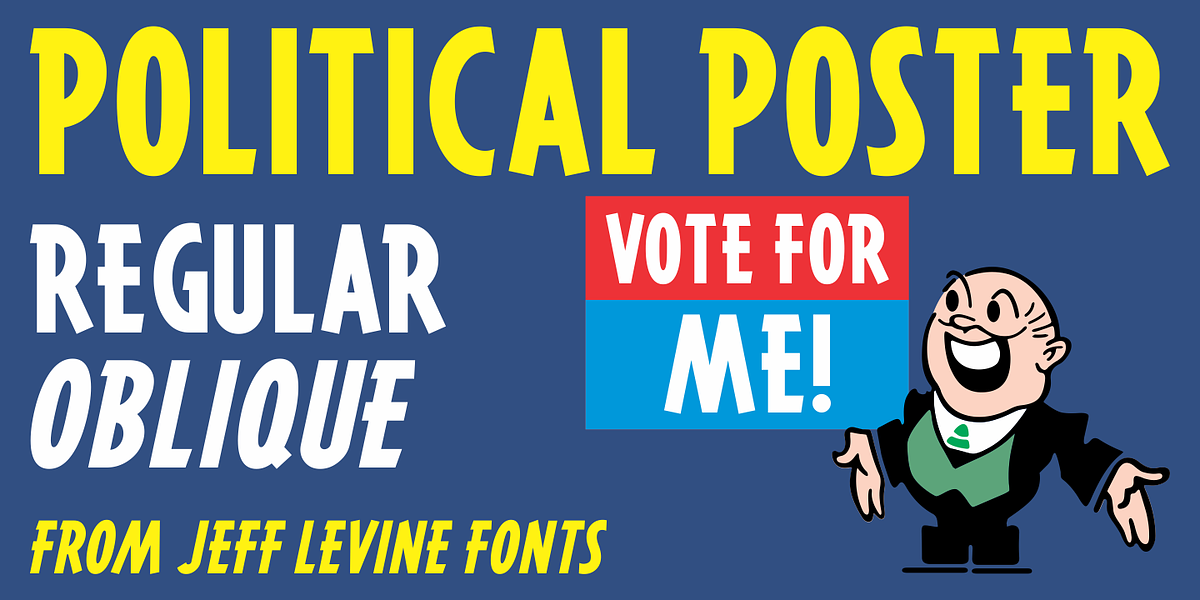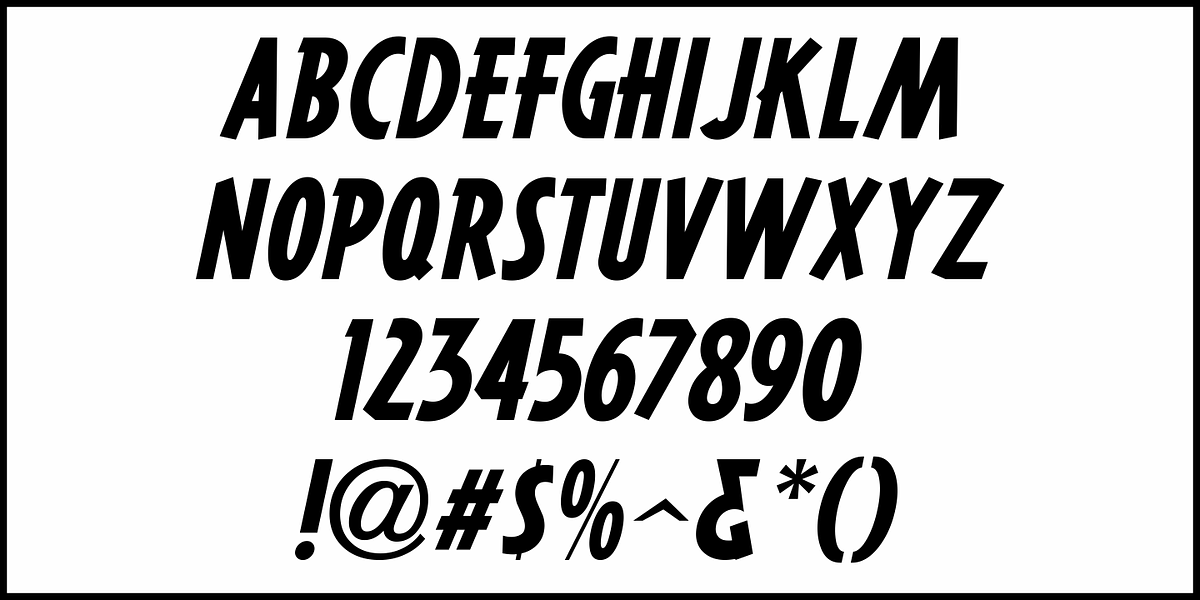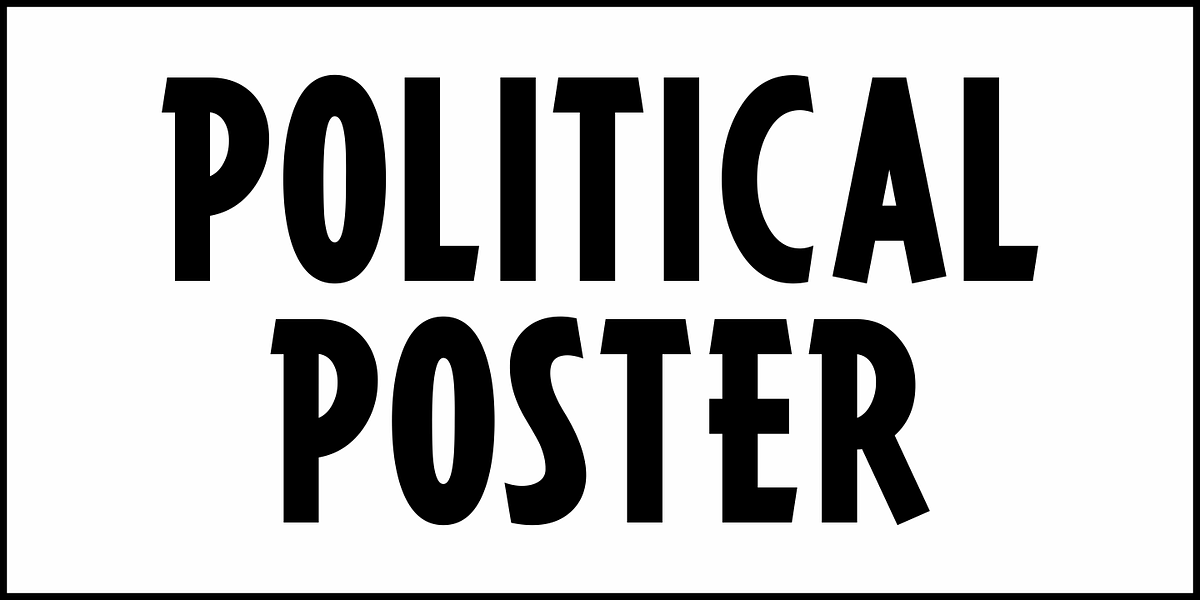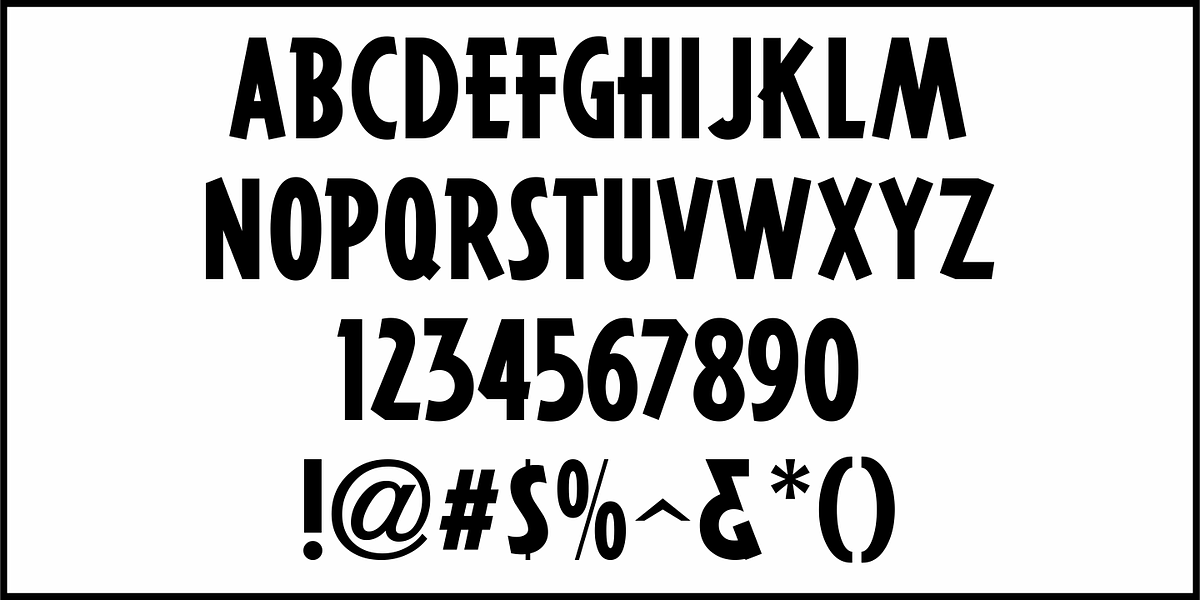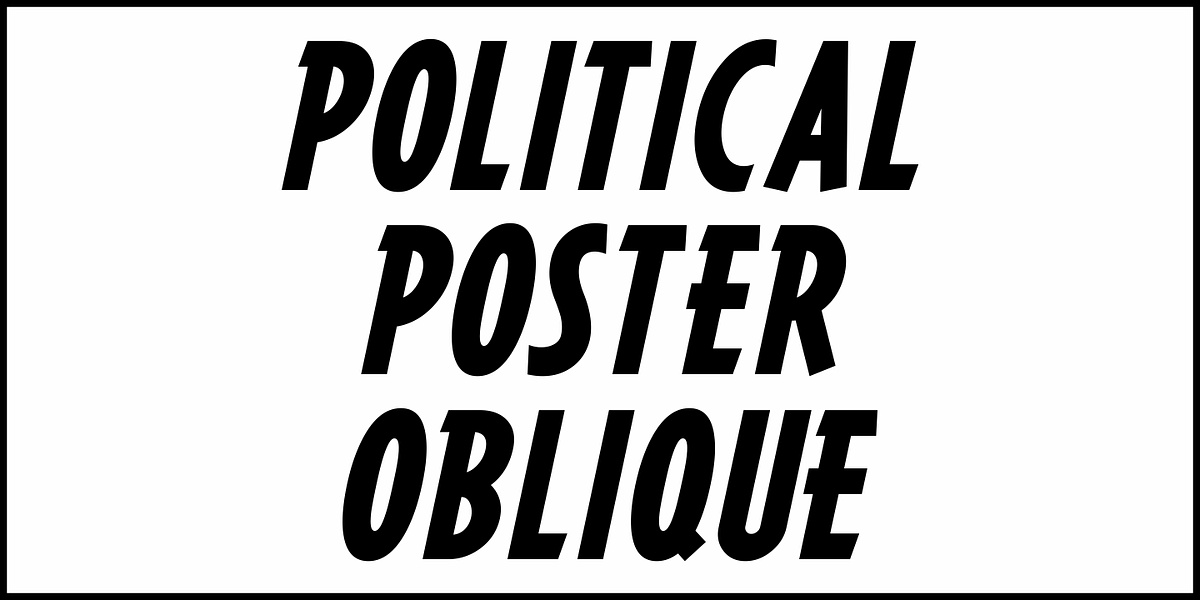
Political Poster JNL
Inspired by the hand lettering on a 1940 campaign poster for Franklin Delano Roosevelt, this condensed, casual sans serif design is now available as Political Poster JNL – in both regular and oblique versions.